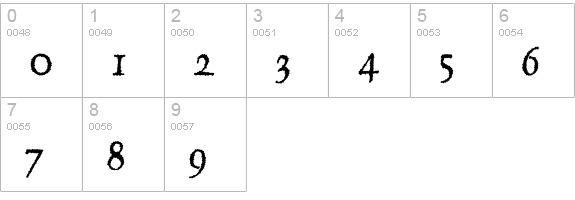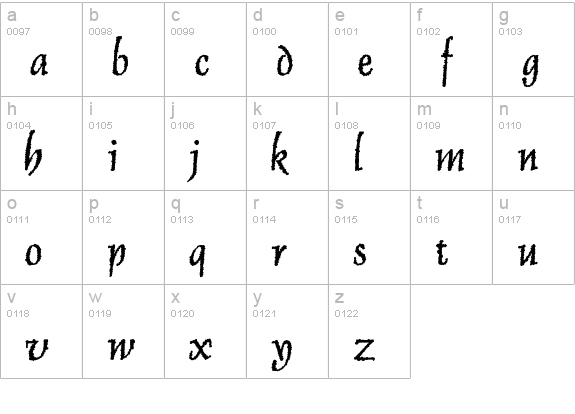
Skurri Font Details
Introducing Skurri font, a stunning typeface designed to captivate and inspire. With its unique blend of modern elegance and timeless charm, Skurri effortlessly elevates any design project to new heights. This remarkable font is not only visually striking, but also incredibly versatile, making it the perfect choice for a wide range of applications. Skurri's carefully crafted letterforms exude a sense of sophistication and refinement, creating a luxurious and professional aesthetic. Its clean lines and balanced proportions make it highly readable, ensuring clear communication in any context. Whether used for branding, advertising, editorial design, or even personal projects, Skurri adds an air of elegance and class that is simply unparalleled. What makes Skurri even more enticing is the fact that it is available to download for free at FontsMarket.com. That's right, you can access this exceptional font without any cost, making it a valuable asset for both professional designers and enthusiasts alike. With just a few clicks, you can enhance your creative endeavors with Skurri's graceful curves and timeless appeal. FontsMarket.com, a leading platform for premium fonts, offers Skurri as a testament to their commitment to providing exceptional resources for designers worldwide. By making Skurri freely available, FontsMarket.com empowers creatives to explore their artistic visions without limitations, unlocking endless possibilities for innovation and expression. So why settle for ordinary when you can elevate your designs with Skurri font? Download this remarkable typeface today and experience the perfect blend of beauty and functionality. Unleash your creativity and let Skurri transport your designs to a realm of sophistication and distinction. Remember, it's only a click away at FontsMarket.com - where excellence meets accessibility.